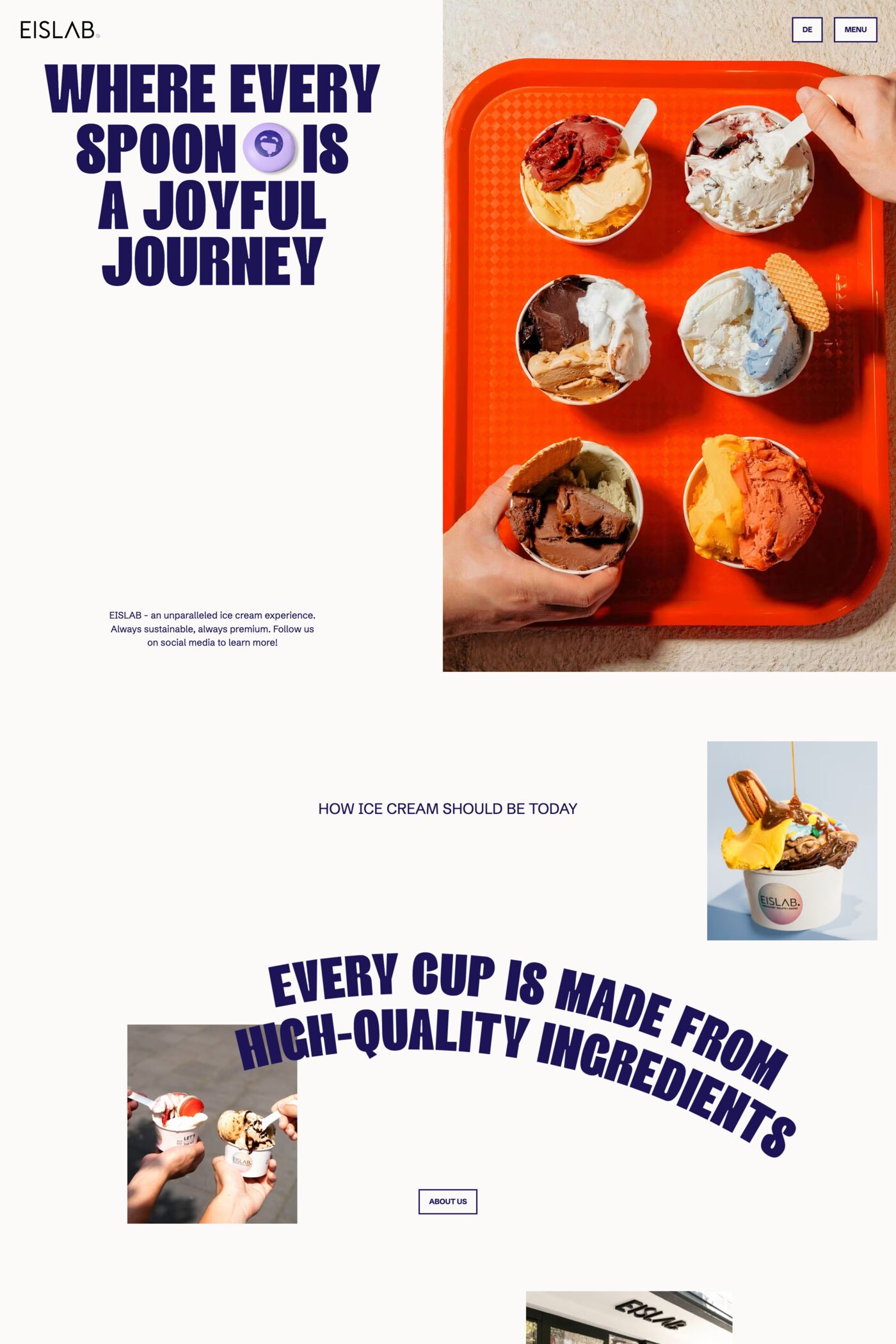
A bold sans serif font for modern design. Elevate your creativity with its distinctive touch. Perfect for all design projects.
A1 features 1 website using ED Aughris. It leans towards Colourful, Bright, and Fun design styles, and it’s most often built with Next.js.